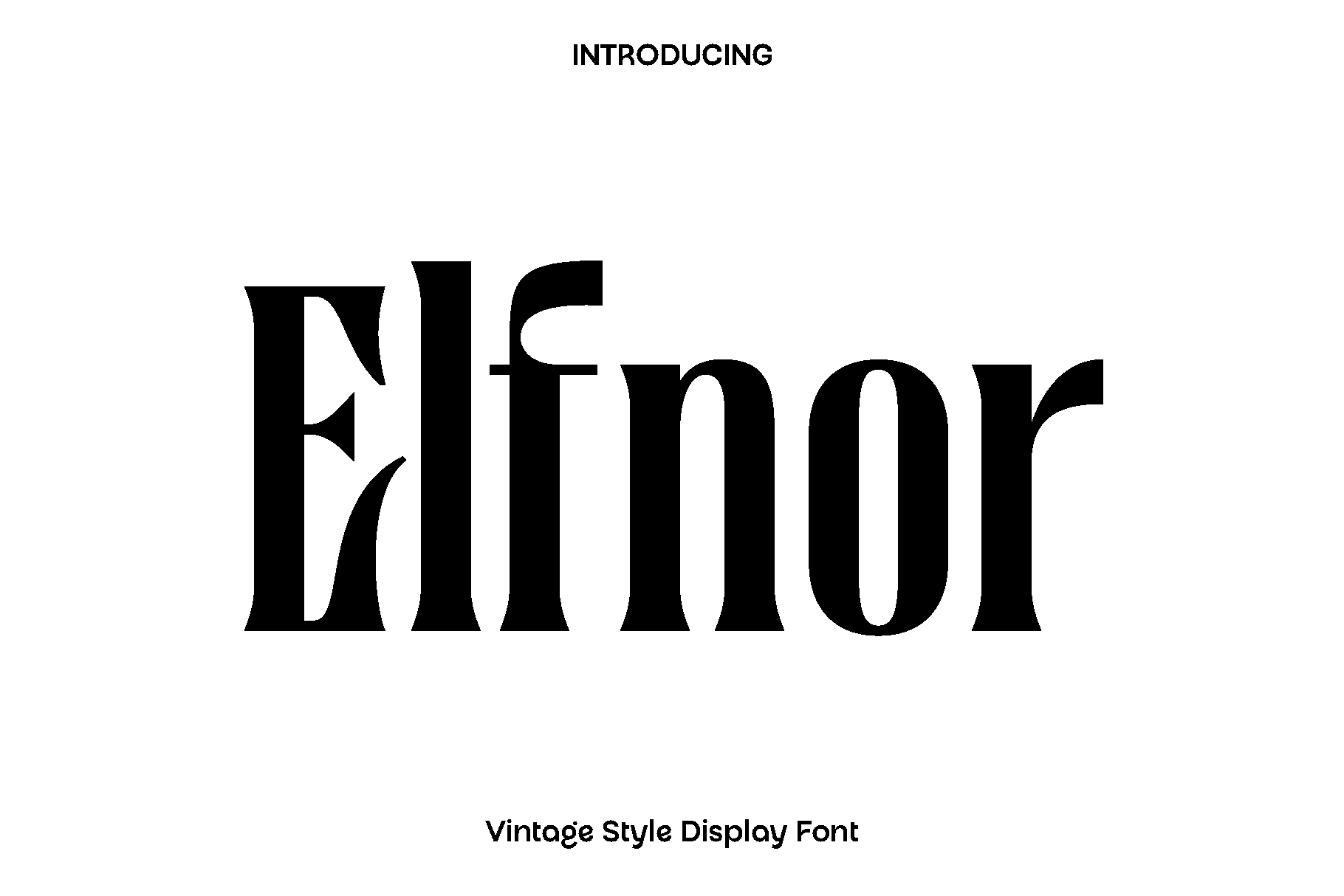
Elfnor - Modern Serif Font
Elfnor is a distinctive vintage style font created to capture the charm and character of classic typography. Inspired by timeless design from the past, Elfnor brings warmth, nostalgia, and authenticity into every letterform. Its carefully crafted shapes reflect traditional craftsmanship while maintaining a clean and professional finish, making it perfect for designers who want to add personality and depth to their work.
This font shines in projects that need a bold and memorable visual identity. Elfnor is ideal for branding designs, logo creation, product packaging, greeting cards, posters, headlines, and retro themed visuals. Whether you are working on a modern brand that wants a vintage touch or a classic concept that needs strong typography, Elfnor delivers a unique balance of style and readability.
Elfnor feels bold, confident, and full of character. It transforms ordinary text into expressive design elements that stand out in both print and digital media. With its versatile nature, this font adapts beautifully to creative projects that aim to tell a story, build emotional connection, and leave a lasting impression.
Elfnor Vintage Style Font Features:
• Classic and expressive vintage letterforms
• Unique punctuation, numbers, and symbols
• Uppercase and lowercase
• OpenType features
• Suitable for branding, logos, packaging, posters, and editorial design